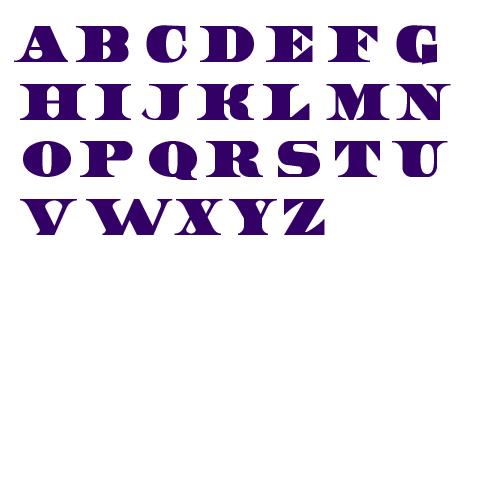
Bold capital letters in a classic block style create a clear display for 'DOLLAR BILL'. Ideal for embroidery on items like wallets and bags. This machine embroidery font is available in PES, DST, and 10 other formats.